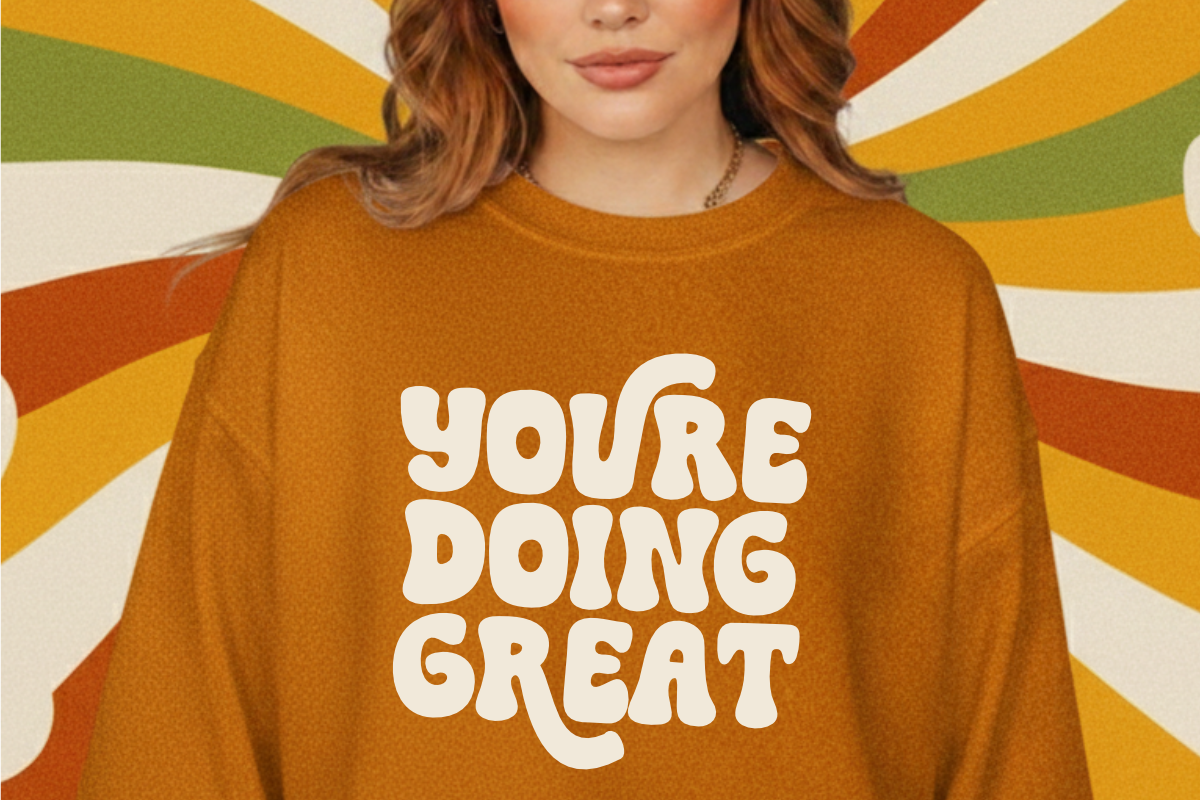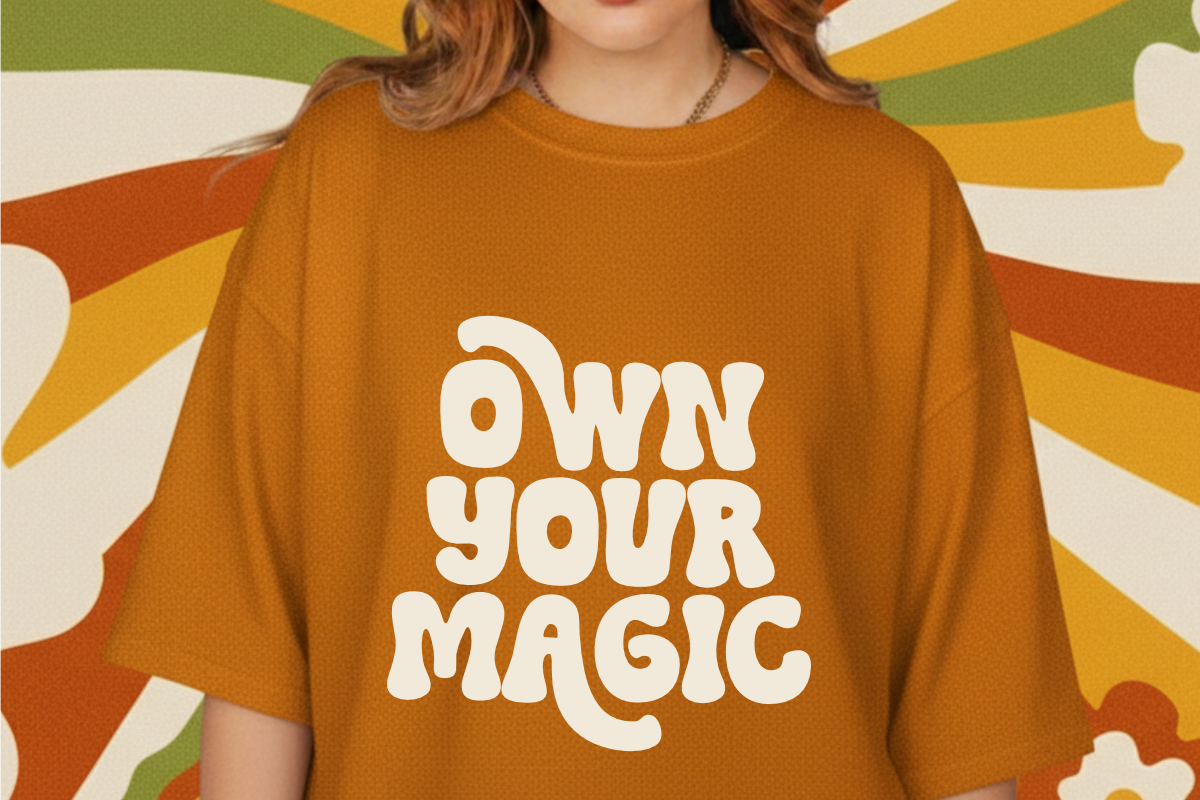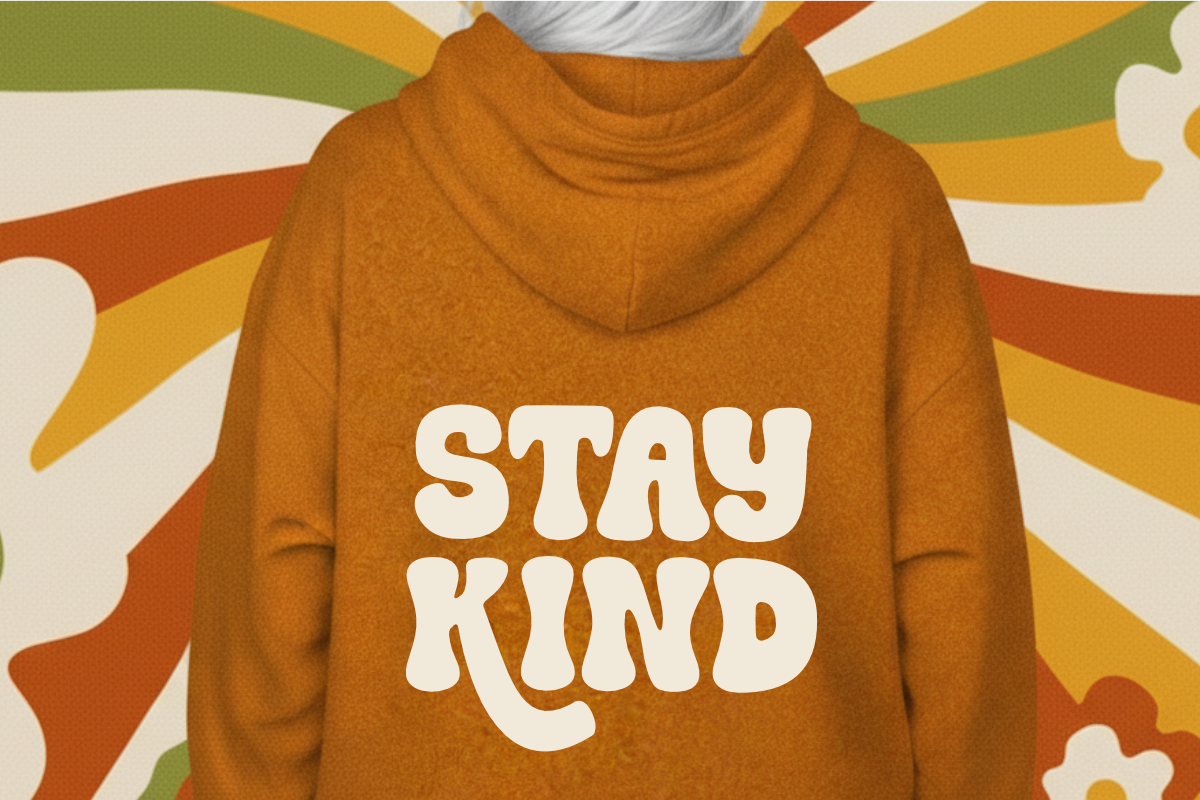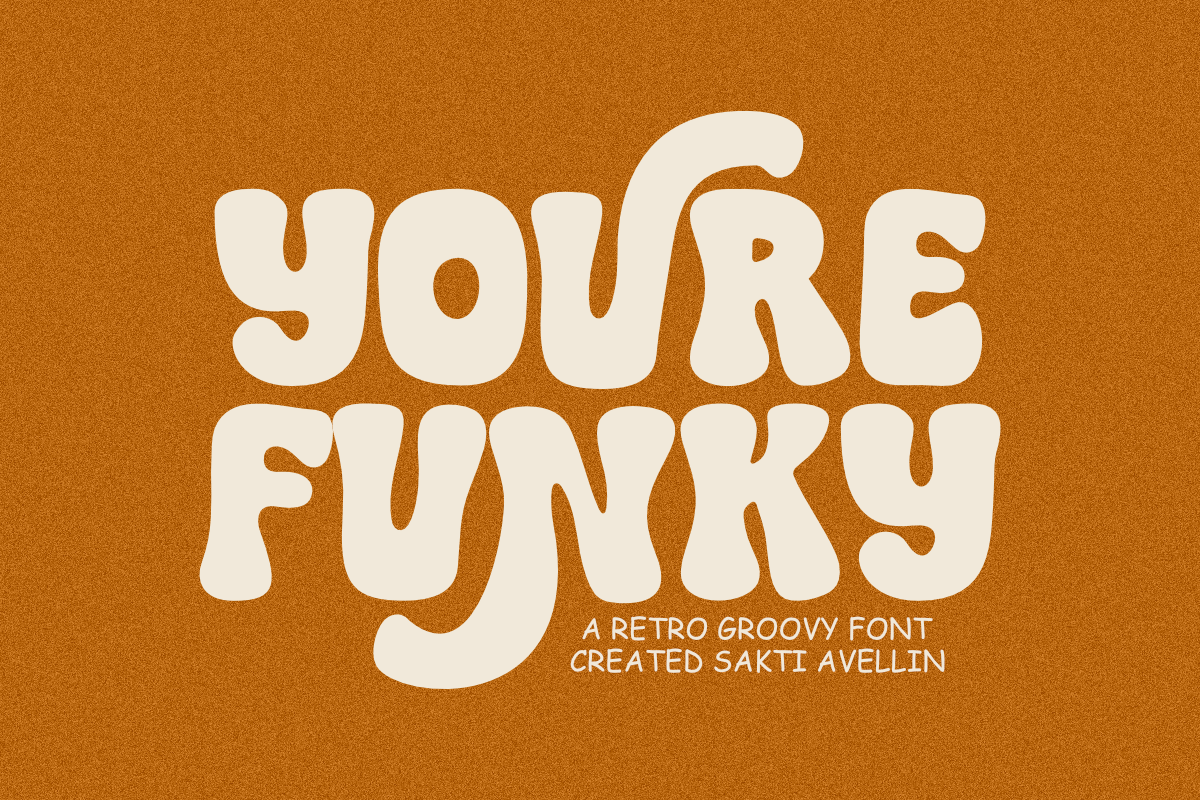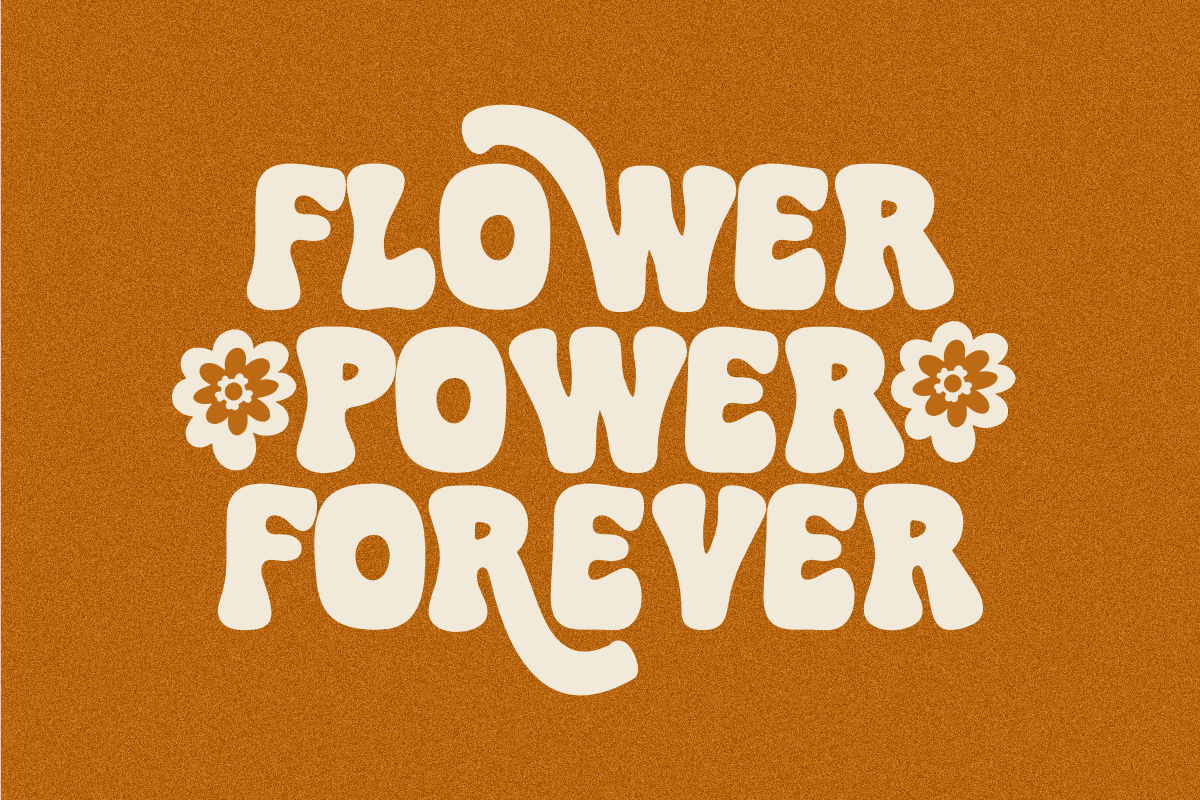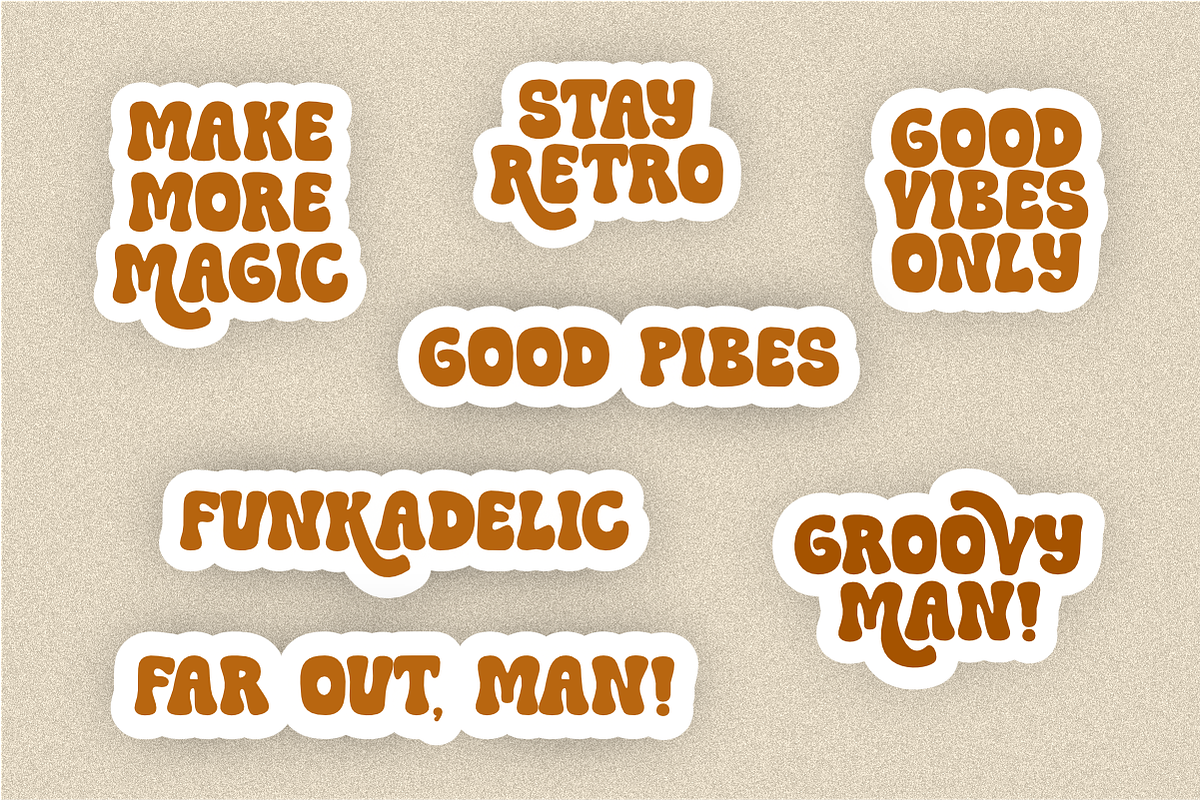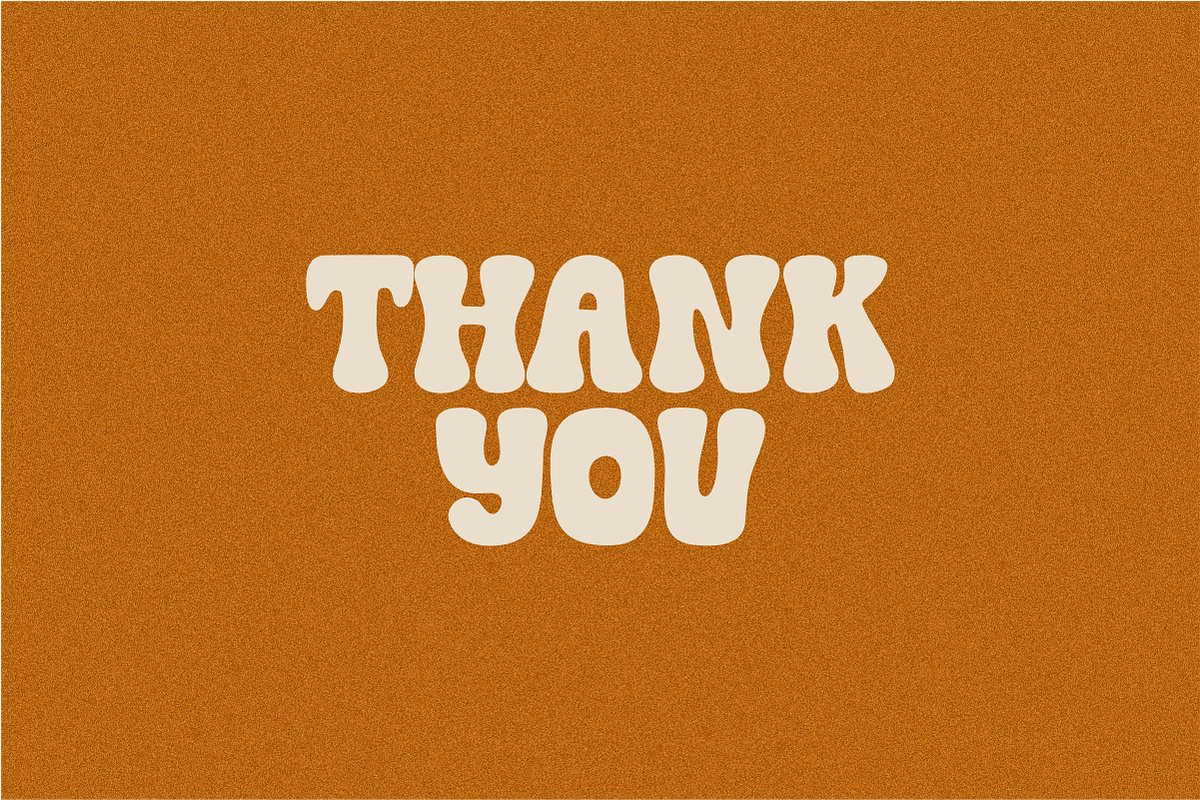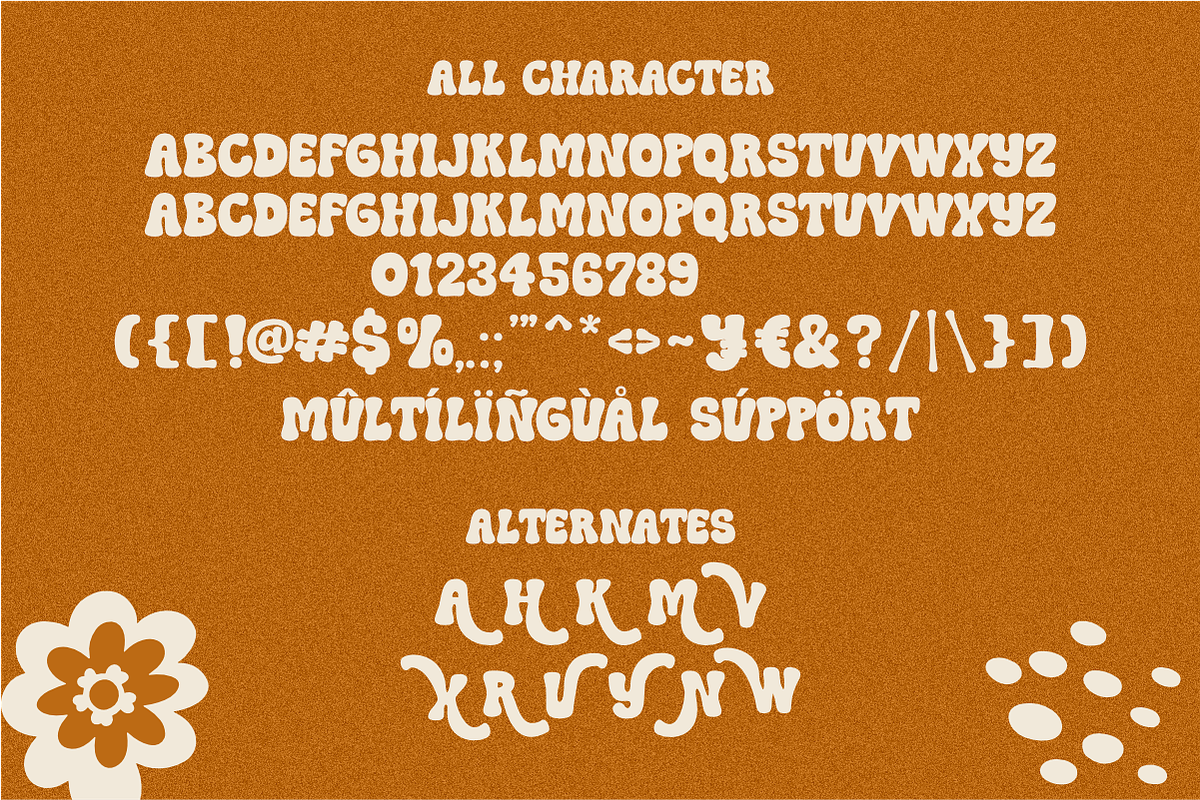
Youre Funky - Retro Groovy Font
Youre Funky is a bold and expressive retro groovy font designed to capture the soulful and energetic essence of the 1970s. This thick display typeface features playful, bubbly letterforms with a rhythmic, wavy flow, making it an ideal choice for vintage-inspired branding, funky apparel, psychedelic posters, and standout social media graphics. Its nostalgic and fun aesthetic ensures your headlines pop with a unique handcrafted personality. Whether you are designing for music festivals, retro-themed shops, or whimsical stickers, Youre Funky adds a lively and creative groove to every project.